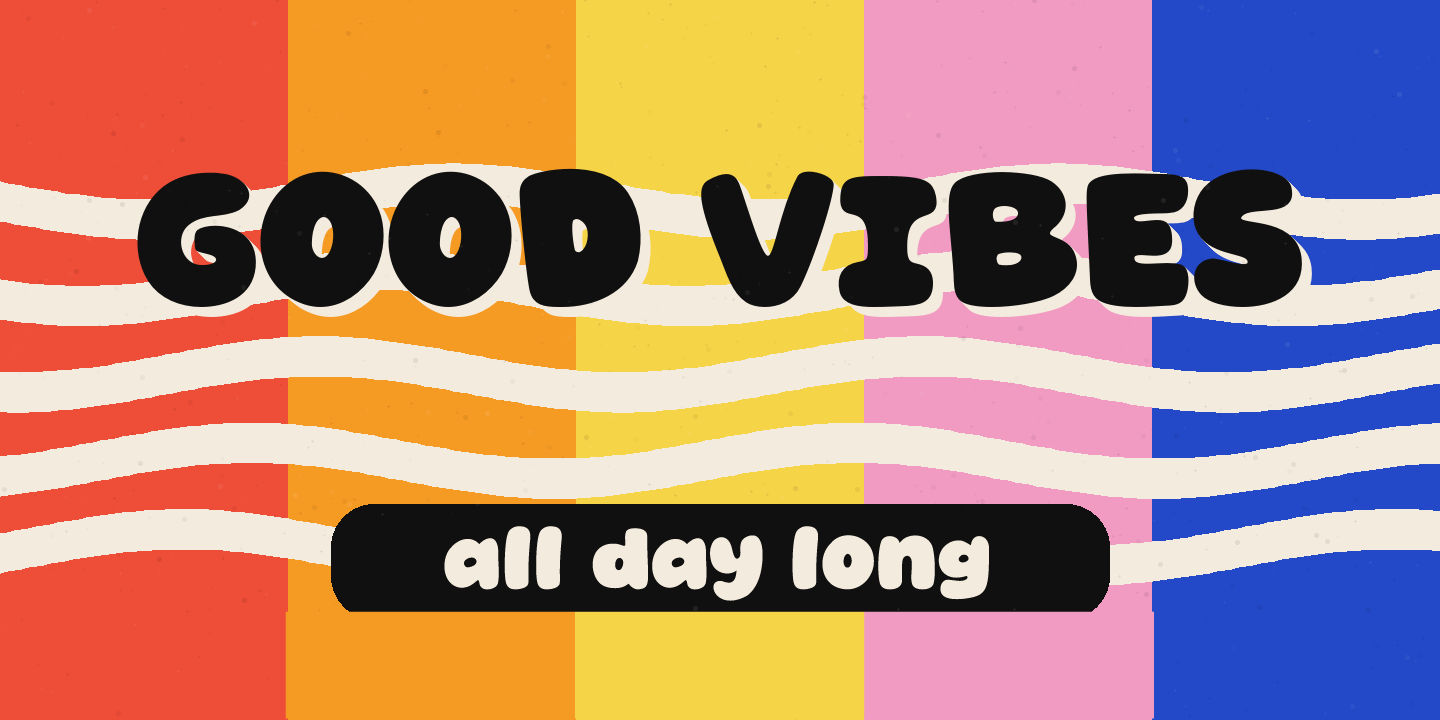
Boldµo Demo is a playful display sans serif by Pedro Teixeira Foundry. Its bold personality and informal shapes suit short headlines, children’s projects, classroom graphics, cartoons, posters, music artwork and friendly branding. It is most effective where a few words need to feel lively and immediately noticeable rather than neutral or restrained.